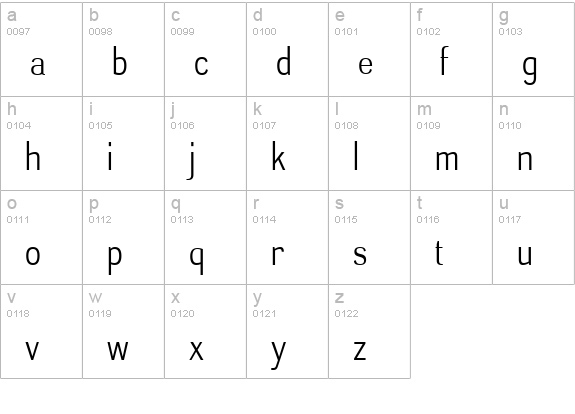
Akazan Bk font is a modern and stylish typeface that exudes elegance and sophistication. Its sleek design and clean lines make it perfect for various design projects, from branding to editorial design. The font features a unique blend of classic and contemporary elements, making it versatile and suitable for a wide range of applications. What sets Akazan Bk font apart is that it is available for free download at FontsMarket.com. This means you can easily access this high-quality font without any cost, making it a valuable addition to your font library. Whether you're a professional designer or a hobbyist looking to enhance your projects, Akazan Bk font is a must-have for anyone seeking a premium and stylish typeface.